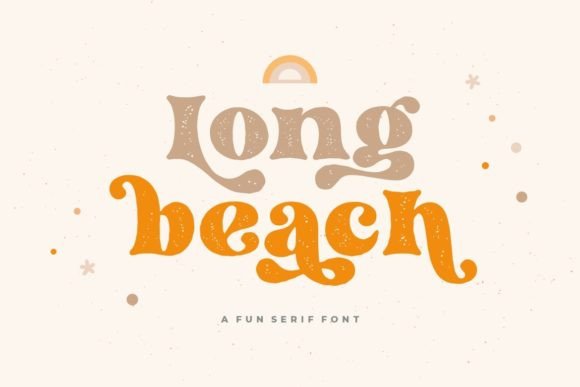
Introducing Long Beach Font, the perfect addition to any design project! Created by HansCo, this retro and bold serif font is sure to catch your eye. With its clean and textured versions, Long Beach Font is the perfect choice for anyone looking to add a special retro touch to their designs.
But don't be fooled by its retro appearance! Long Beach Font is masterfully designed to become a true favorite, capable of bringing all of your creative ideas to life. Its potential is limitless, making it perfect for any project you can imagine.
This font is incredibly versatile, suitable for a wide range of design projects, including logotypes, stickers, packaging, Cricut projects, headlines, brand identity, t-shirts, apparel industry, posters, magazines, books, YouTube, Instagram, websites, and so much more.
One of the best things about Long Beach Font is that it's PUA encoded, which means you can easily access all of its glyphs and swashes with ease. This feature allows you to truly make this font your own, adding your own personal touch to any project you create.
Overall, Long Beach Font is a must-have for anyone looking to elevate their designs to the next level. Its unique retro style, combined with its versatility and ease of use, make it the perfect choice for any designer, marketer, or creative professional. Download Long Beach Font today and see the difference it can make in your designs!